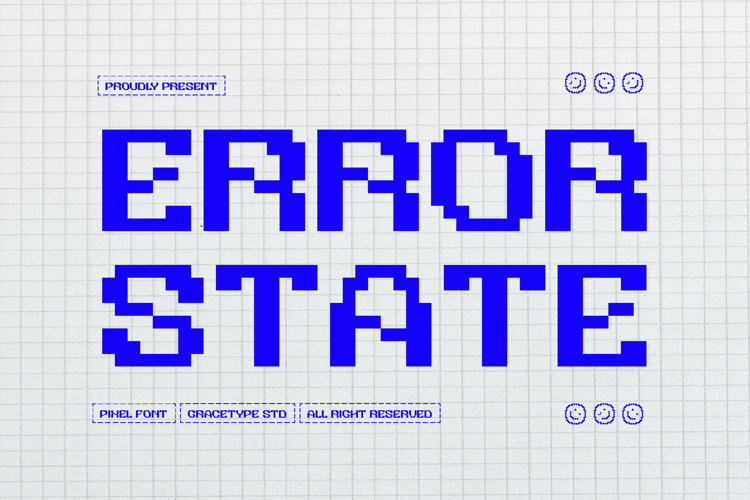
Error State Font
Rounded Regular Style
Error State | Pixel Font, is suitable for any projects such as: logos, branding projects, homeware designs, product packaging, mugs, quotes, posters, shopping bags, t-shirts, book covers, name card, invitation cards, greeting cards, label, photography, watermark, special events, and all your other lovely projects that need a Pixel f taste.